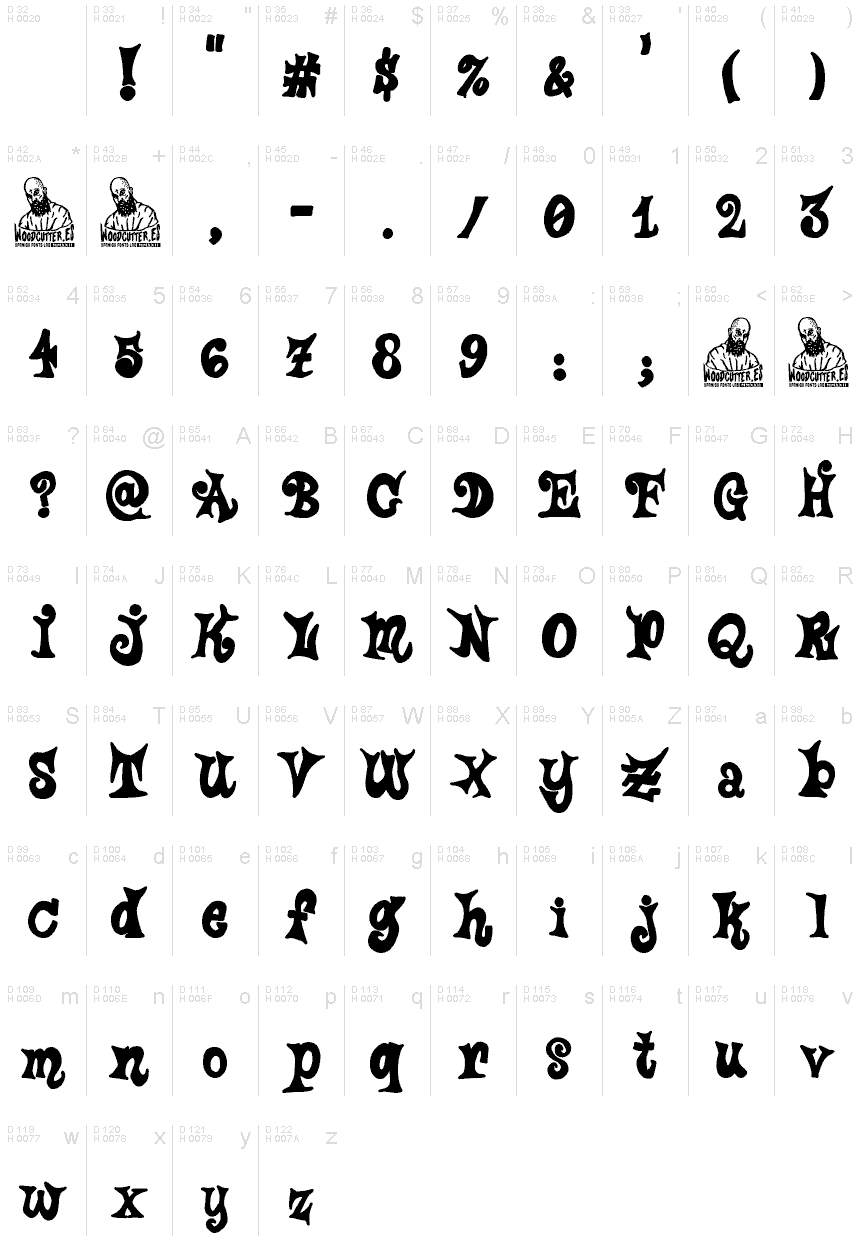
Tales Of Pain And Love
Tales of Pain and Love font designed by Woodcutter is a bold display font with a groovy style and retro inspiration. The typeface features ornamental detailing, decorative flair, and a vintage appeal that evokes historical romance novels or even fantasy themes. Expect slight distorted lines as well where thick letter bodies are connected.
The free font is aimed for thematic posters or book covers but can also be tried in headlines, social media posts, website titles, ad graphics, billboard designing, tattoo work and designs that need an antique theme. Experimenting with product label typographic parts could benefit greatly as well.